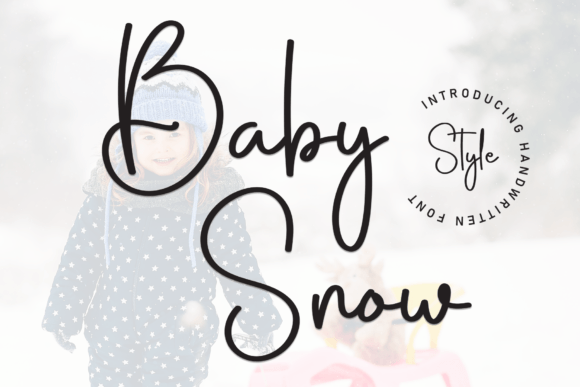
Discover the Magic of Baby Snow Font
Have you ever found yourself lost in a sea of inspiration, surrounded by blank canvases and endless possibilities? That’s where the spark of creativity happens – in those quiet moments of discovery. For designers, the thrill of the chase is what drives us to create something truly special. And for many, that special something is the perfect font.
Enter Baby Snow Font, a timeless handwritten font that adds a touch of whimsy and elegance to any design. This charming font is perfect for creating eye-catching logos, branding, and quotes that leave a lasting impression. With its unique and beautiful touch, Baby Snow Font brings designs to life, making it a valuable asset for any designer looking to add a personal touch to their work.
Baby Snow Font Key Features
- Font Family: Baby Snow, Baby Snow Bold, Baby Snow Italic, Baby Snow Bold Italic
- Unique Characteristics: Baby Snow features a unique, whimsical design with intricate details, making it perfect for creating a magical and playful atmosphere
Baby Snow Font Review
I recently had the chance to work with the Baby Snow Font, and I’m excited to share my thoughts with you.
- Soft, delicate aesthetic: The Baby Snow Font has a beautiful, airy feel that’s perfect for creating a whimsical and playful atmosphere.
- Unique character set: The font includes a range of special characters, from snowflakes to festive symbols, that add a touch of magic to your designs.
- Easy to read: Despite its intricate design, the Baby Snow Font is surprisingly easy to read, even at smaller font sizes.
- Limited language support: Unfortunately, the Baby Snow Font only supports a limited range of languages, which may be a drawback for designers working with multilingual clients.
- Not ideal for large text: Due to its delicate design, the Baby Snow Font may not be the best choice for large blocks of text, as it can become difficult to read.
Overall, I think the Baby Snow Font is a great addition to any designer’s toolkit. While it may have some limitations, its unique aesthetic and ease of use make it a great choice for a wide range of projects. Just be mindful of its limitations, and you’ll be sure to create some magical designs with this font.
For best results, use the font in a design that requires a playful and whimsical feel.
For best results, use the font in a design that requires a delicate and childlike feel.
For best results, use the font in a design that requires a fun and playful feel.
Baby Snow Font is ideal for:
- Infant and toddler product branding.
- Christmas and winter-themed designs.
- Playful and whimsical greeting cards.